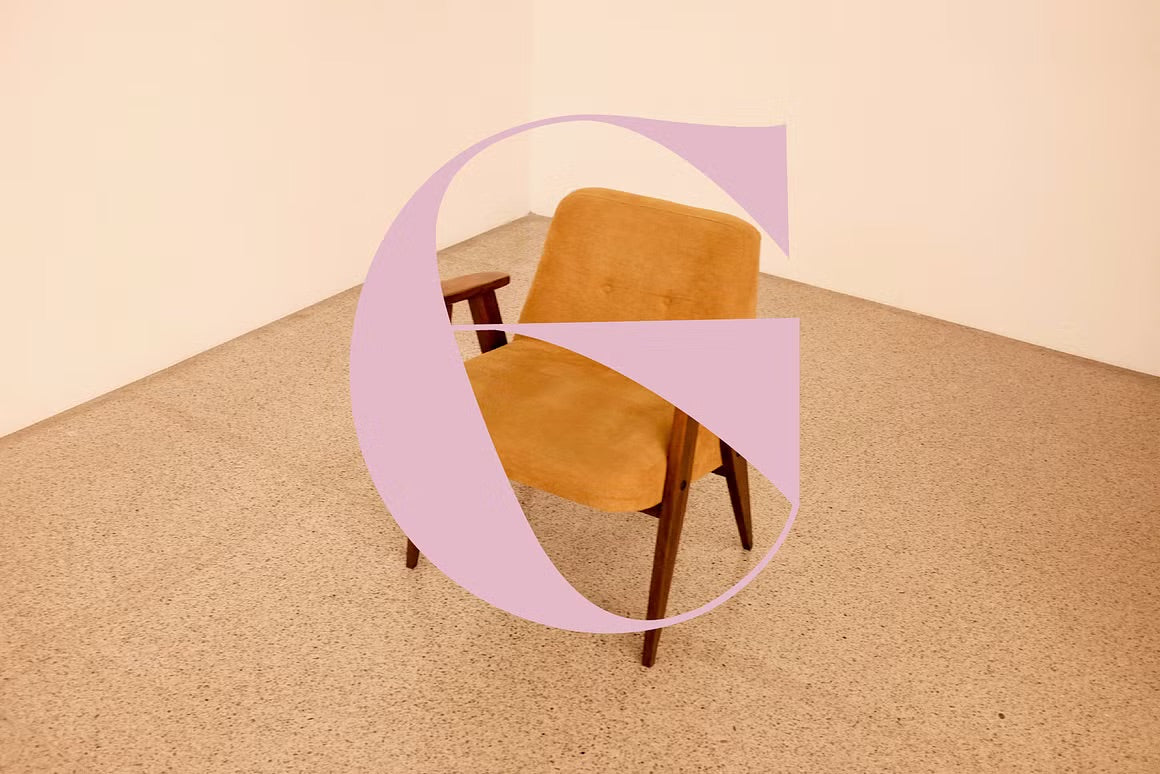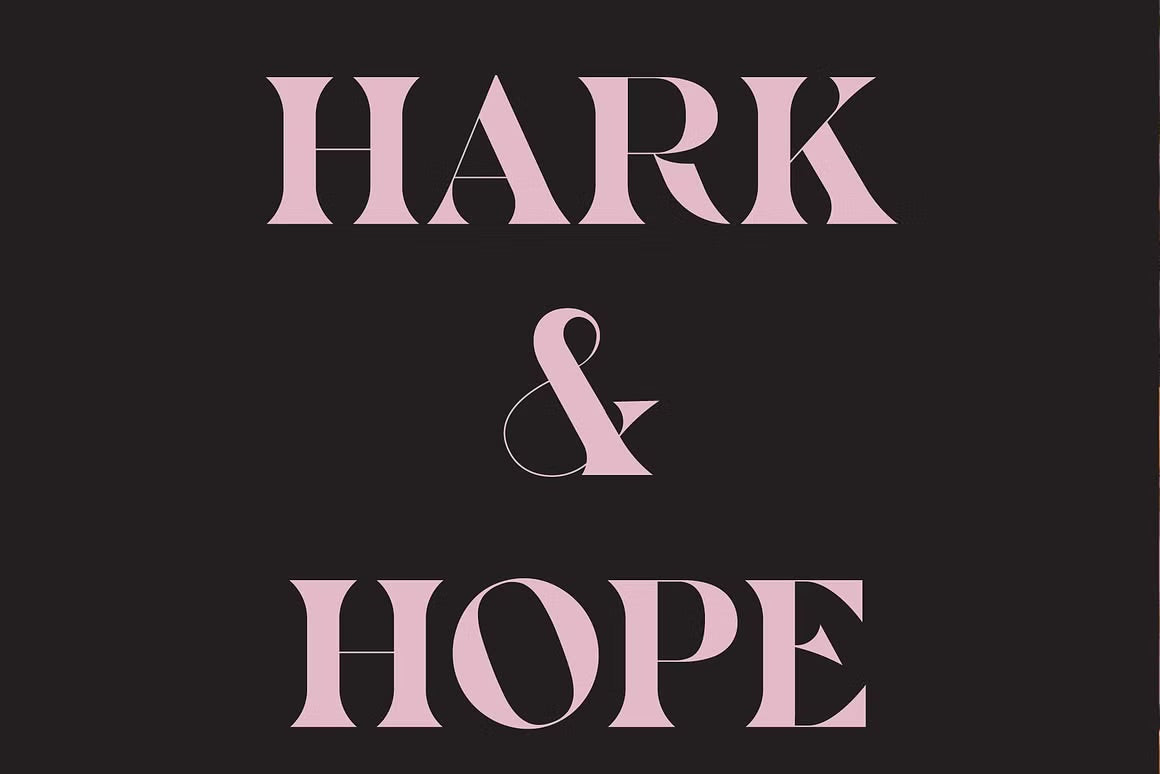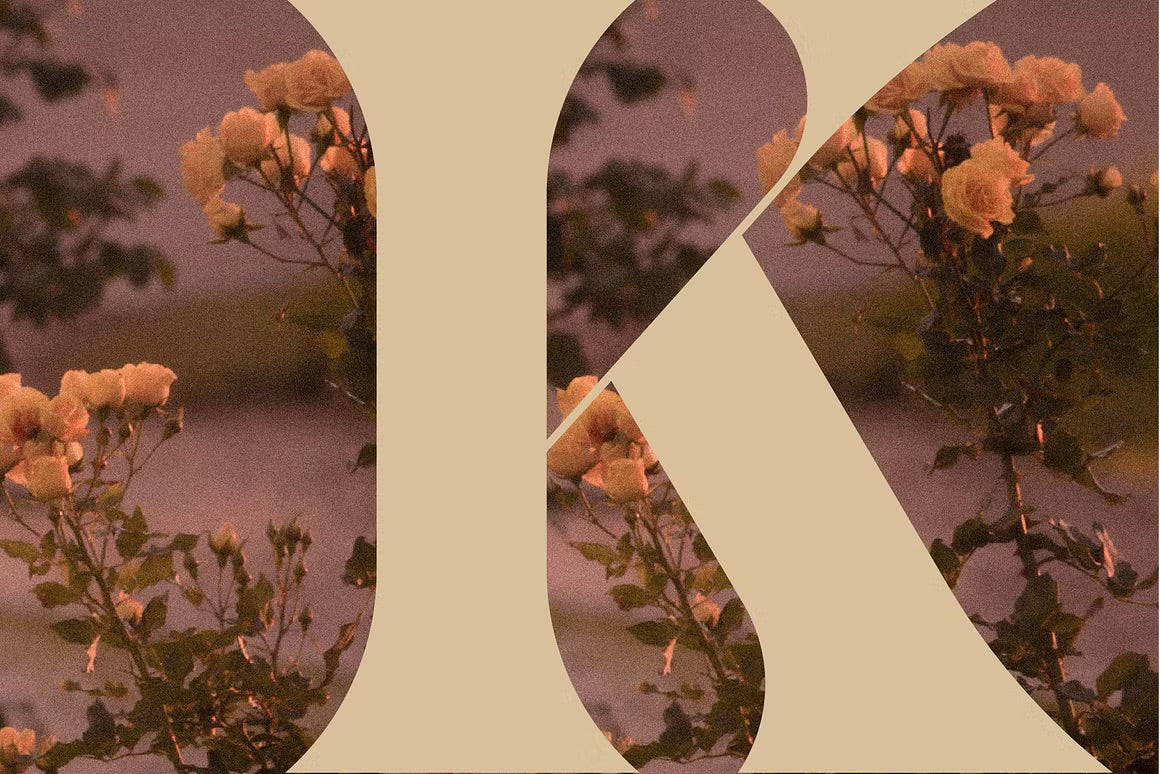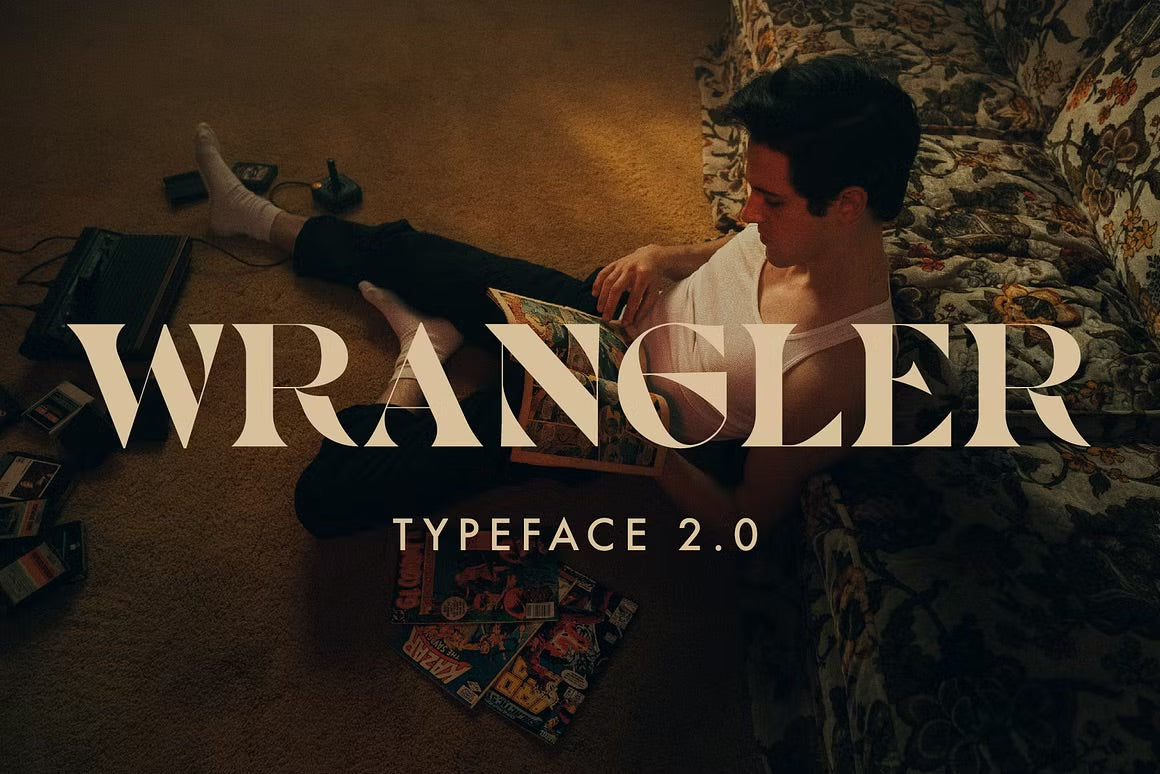
The bonus font pack includes four exciting fonts and is 100% free for commercial use when you spend over $35. It contains Soda, a melting, connected bold sans-serif; Wranger, an edgy all-caps serif; Fender, an experimental trippy font; and Floss, a thin unique display font with mix-and-match casing.